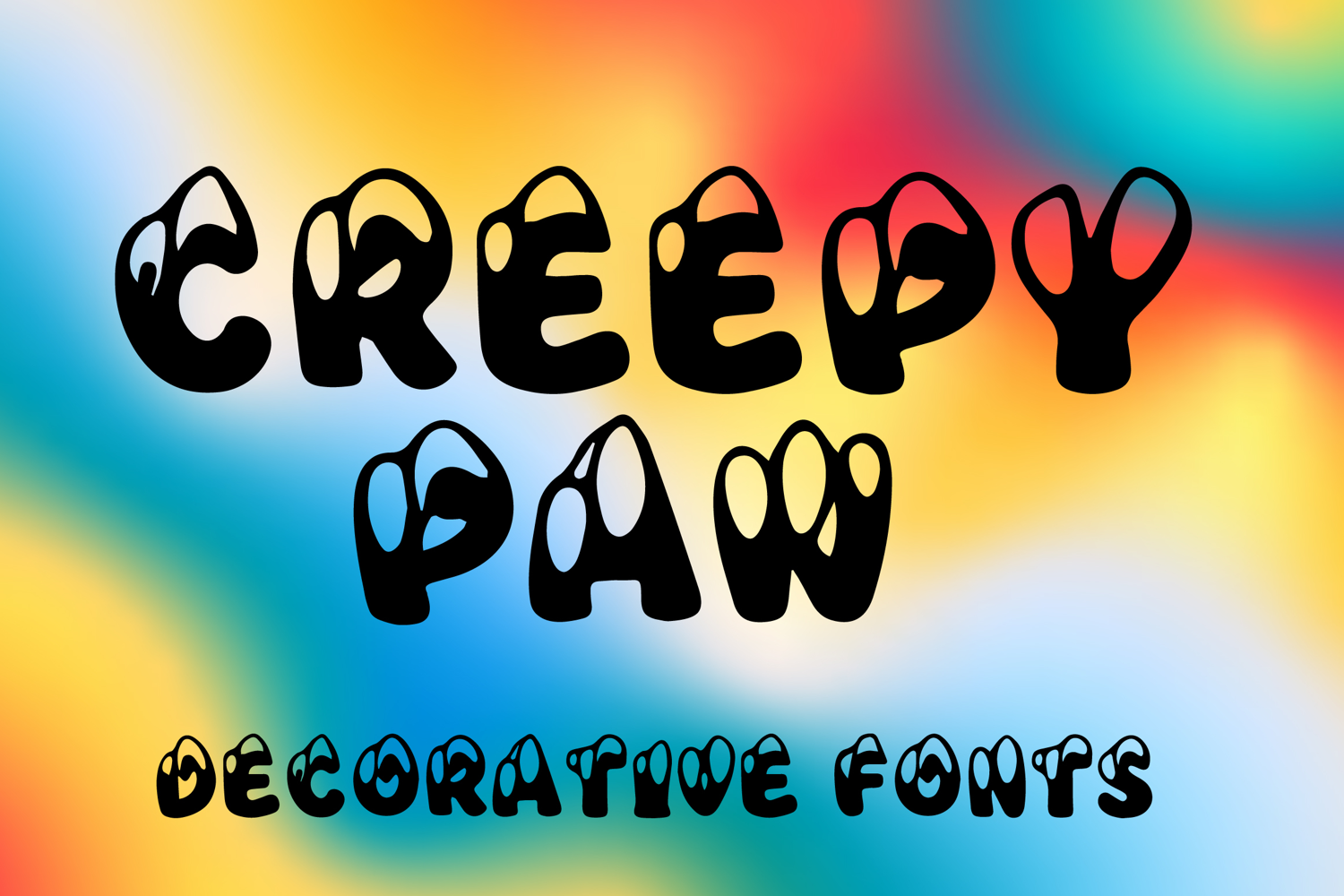
Creepy Paw
Creepy Paw is a playful decorative display font with a spooky cartoon-inspired style and bold quirky character. Its uppercase letterforms feature rounded paw-like cutouts, soft blob shapes, and fun irregular details that create a creepy-cute, eye-catching look. Designed with uppercase letters A–Z and numbers 0–9, Creepy Paw is perfect for Halloween designs, posters, party invitations, branding, packaging, logos, and creative projects that need a fun and memorable spooky statement.